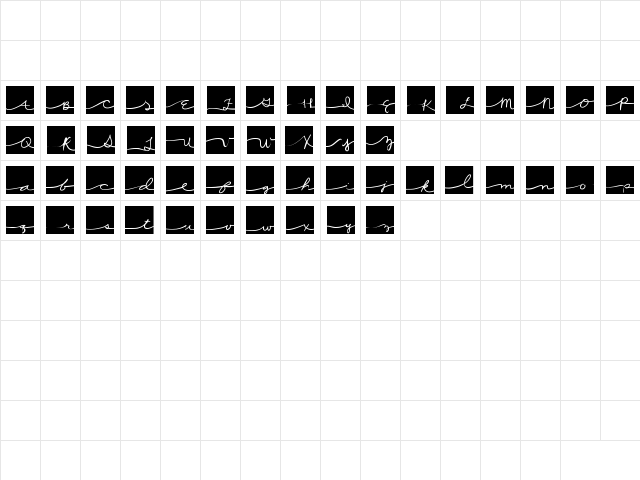
2Peas Scrapper's Block Regular
Design Context for 2Peas Scrapper's Block Typeface
2Peas Scrapper's Block is a composed and adaptable typeface that performs quietly and consistently across a wide range of design contexts.